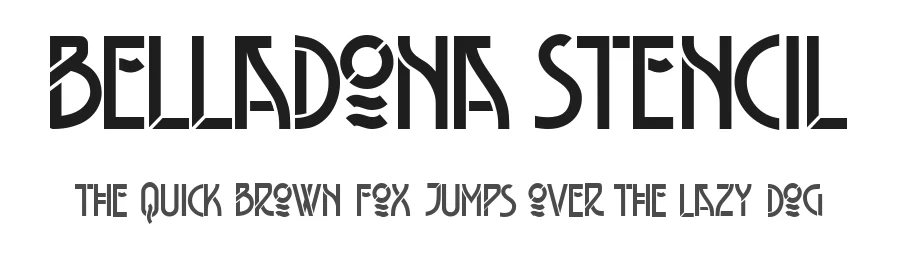
About Belladona Font
Created by Tano Veron
| Designer | Tano Veron |
Belladona Font is a decorative font that shines as a display or heading face. Pair it with a clean sans-serif or serif font for body text — the contrast creates a clear hierarchy while the two styles stay balanced and easy to read.
Belladona Font
by Tano Veron